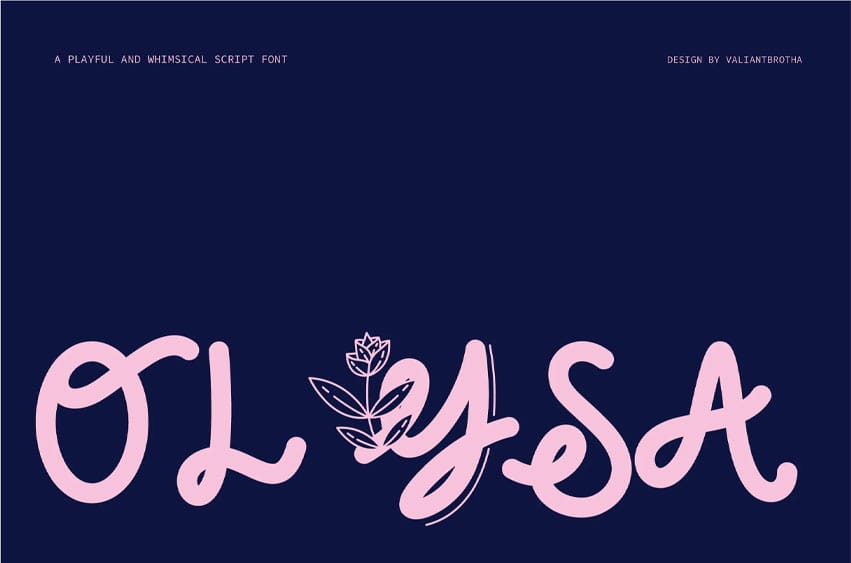
Olysa Font is a delightful script font that brings a sense of whimsy and charm with every curve. Its playful nature makes it perfect for projects that need a fun, informal touch.